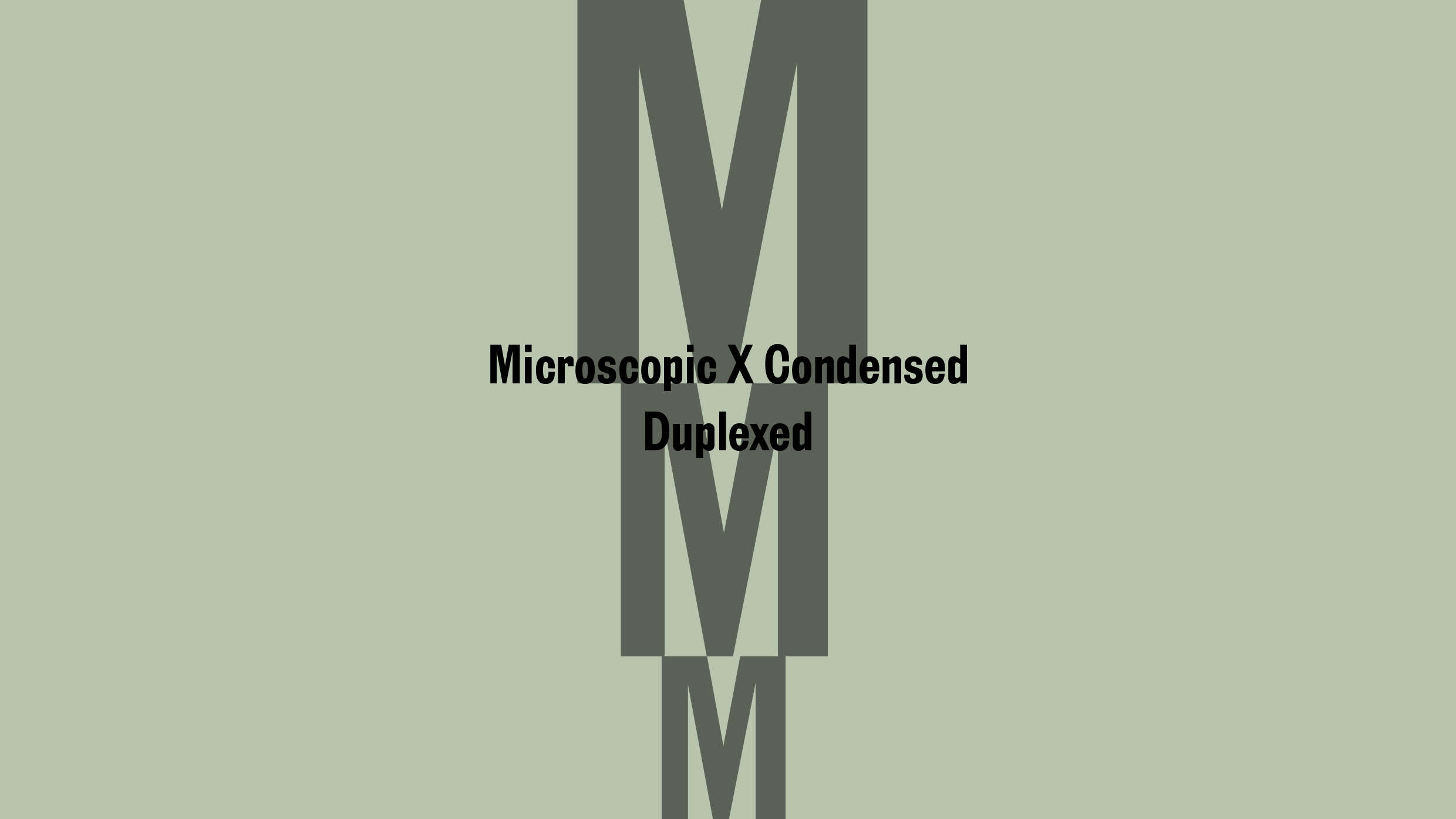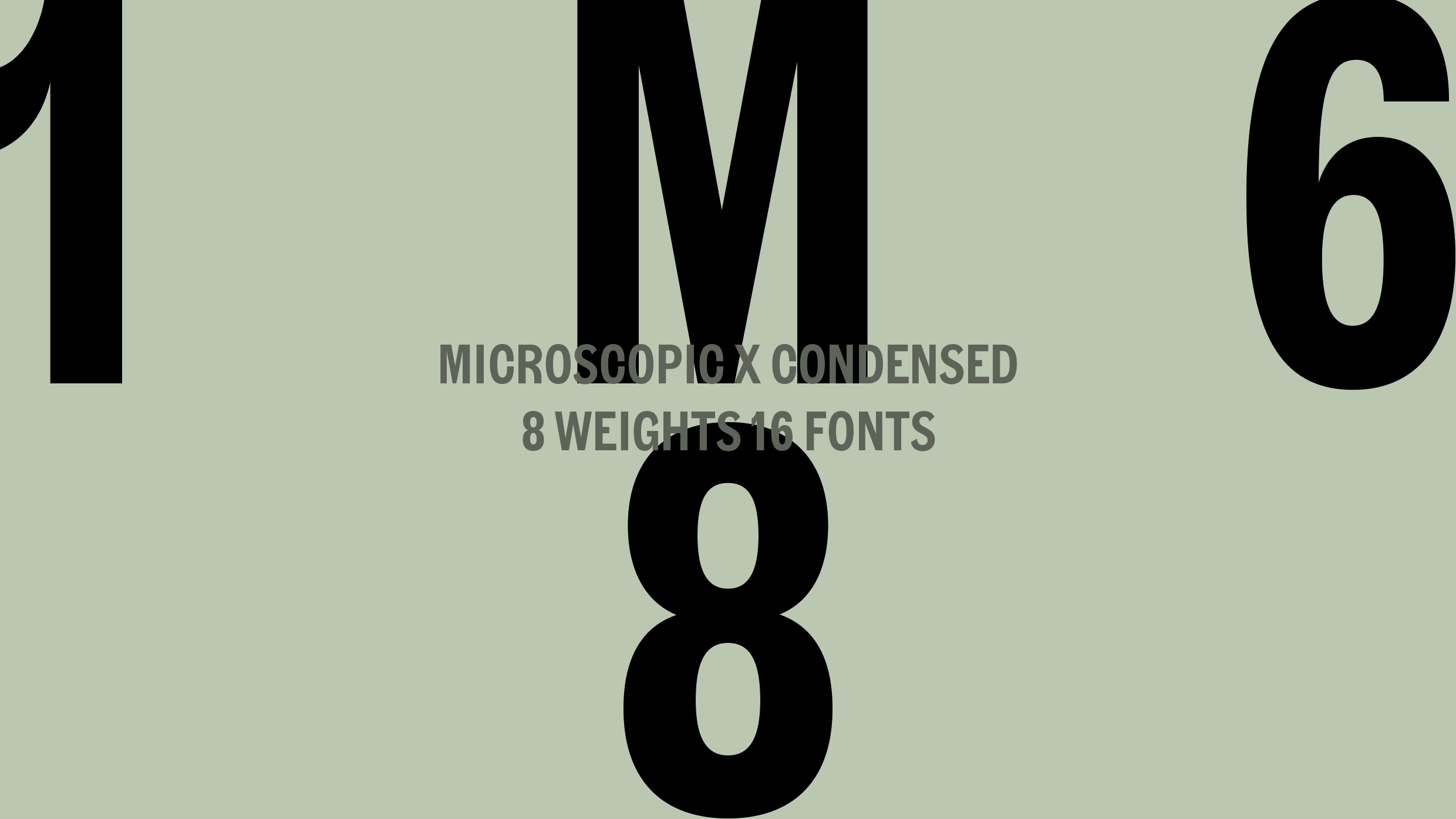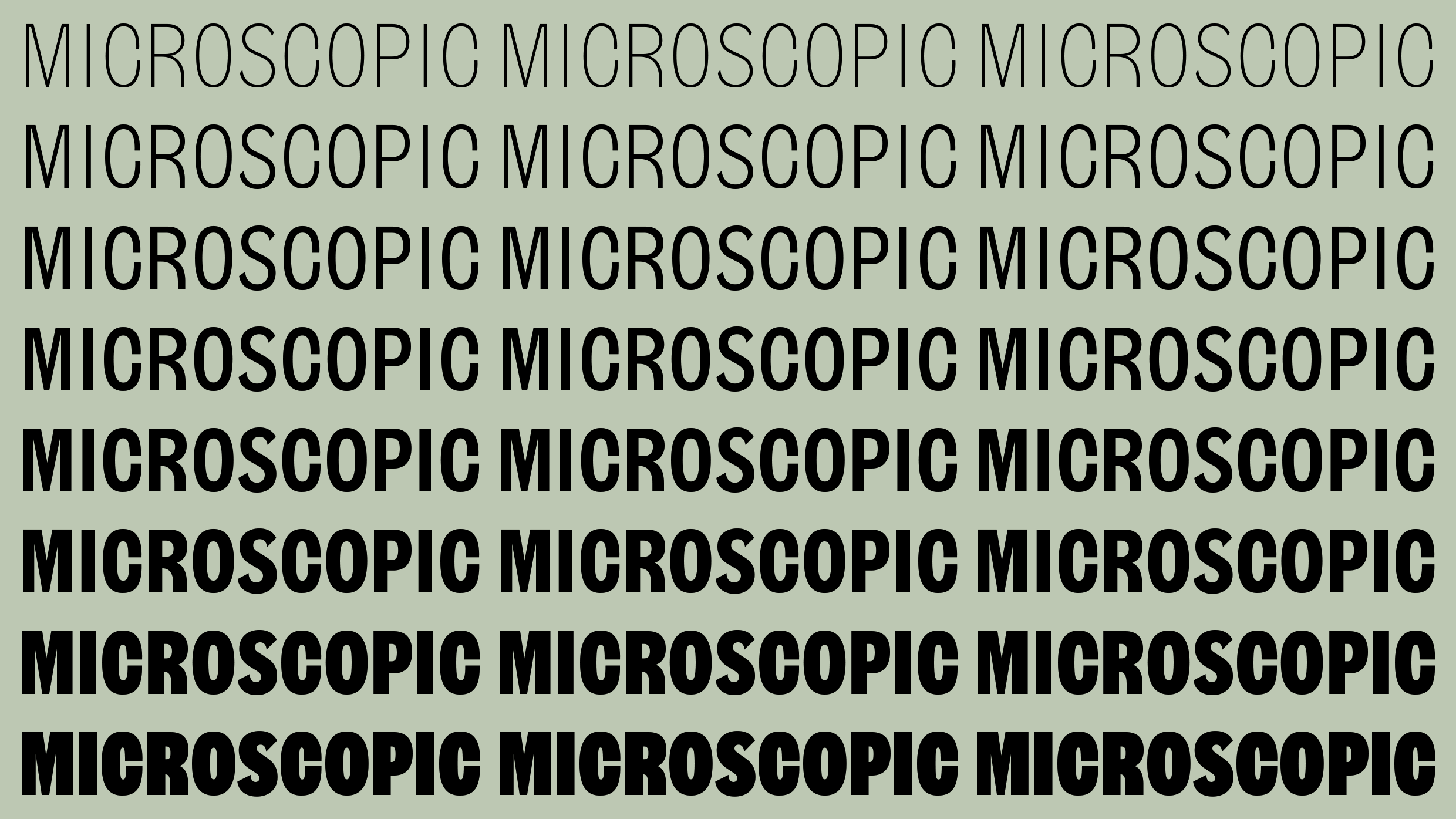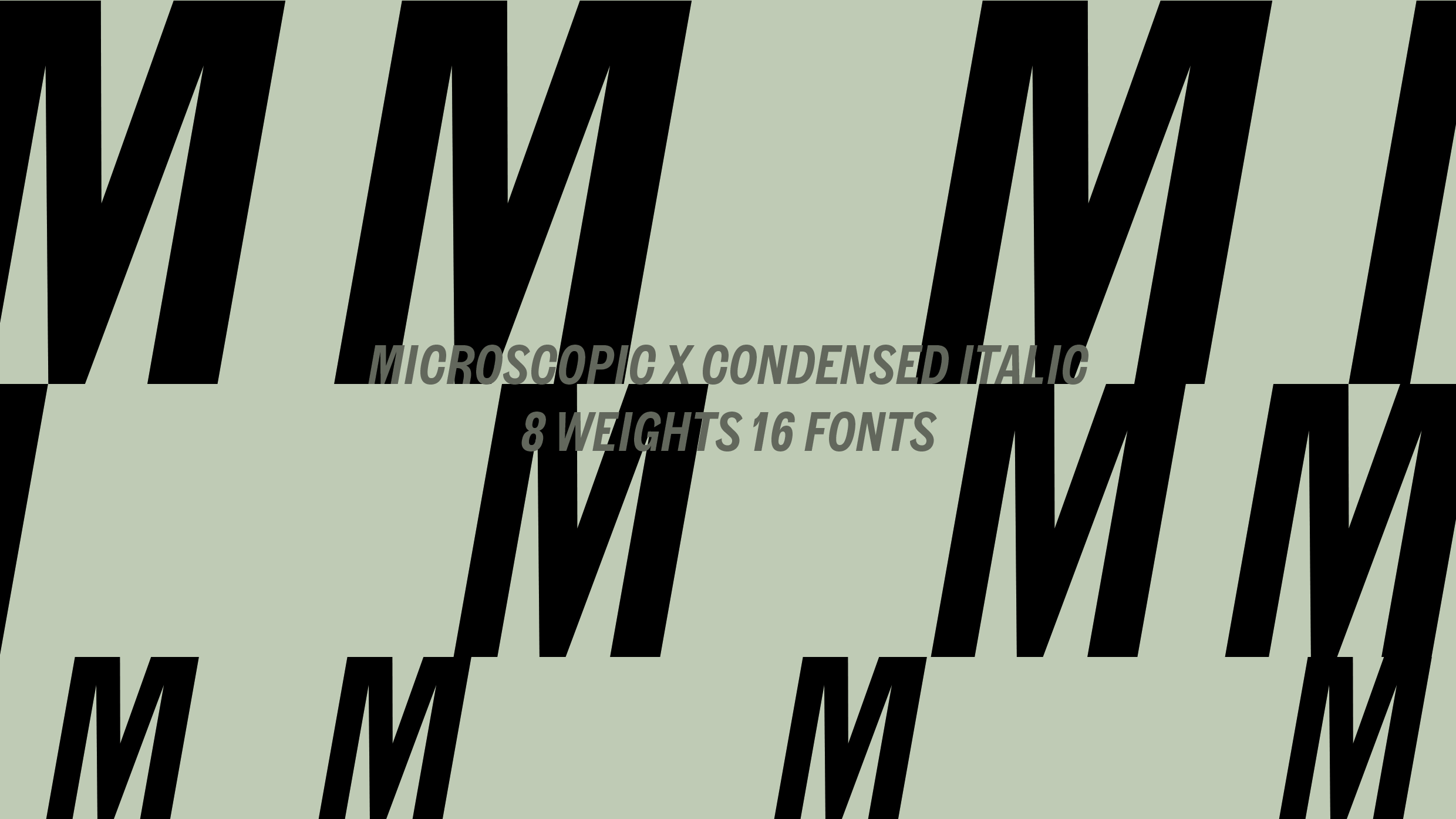
Microscopic is a font inspired by GOTHIC NO. 3, a typeface featured in the Barnhart Brothers & Spindler Typeface specimen, published in the US c. 1908. Its distinctive appearance and clarity in small point sizes suggested the name Microscopic. The source typeface is an inspired amalgamation of styles, mixing square and soft shapes. The almost ‘mechanically’ constructed lowercase has intriguing and highly original ‘pinched’ bowls attached to the stems of the b, d, g, p, and q, among other fine details. Our font system is a duplexed design which means that all of the fonts use the exact same amount of space no matter which font weight you select. This font is an ideal choice for sceen work and micro use cases.
| Font name: | Microscopic X Condensed |
| Font category: | Sans |
| Script: | Latin |
| Manufacturer: | A2-TYPE |
| Designer: | Henrik Kubel |